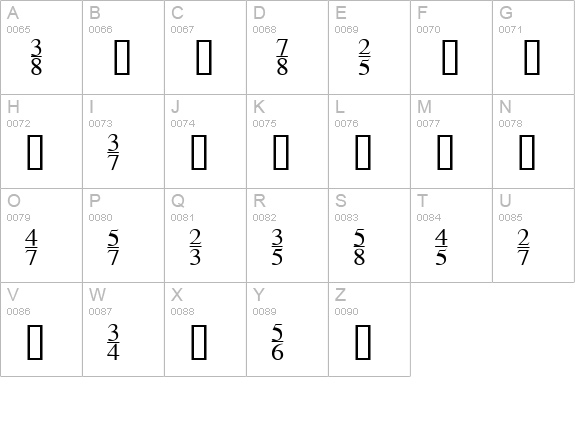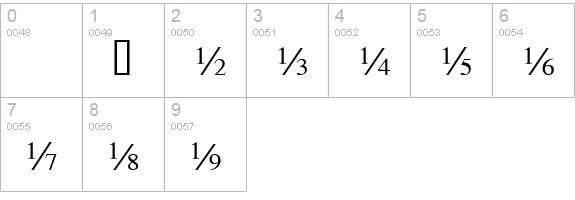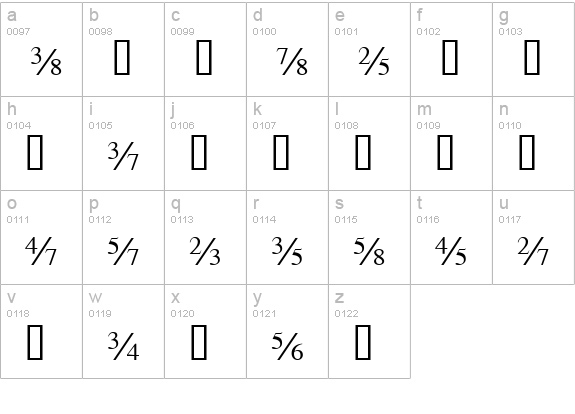
TiFractions Font Details
Introducing TiFractions, a visually stunning and versatile font that is sure to elevate your design projects to new heights. This font is the perfect blend of elegance and functionality, making it ideal for a wide range of applications. TiFractions boasts a unique and contemporary design, with its sleek lines and perfectly balanced proportions. Each letter has been meticulously crafted to ensure maximum legibility and readability, even at smaller sizes. The clean and crisp strokes of this font make it a standout choice for both digital and print media. One of the standout features of TiFractions is its ability to effortlessly create beautiful fractions. With its built-in fraction design system, this font takes the hassle out of creating precise and visually appealing fractions. Whether you're working on a mathematical equation, a recipe book, or a design project that requires precise fraction representation, TiFractions has got you covered. What sets TiFractions apart is that it is not only visually stunning but also freely available to download at FontsMarket.com. This means that you can add this incredible font to your collection without breaking the bank. It's the perfect choice for designers, students, and anyone looking to enhance their creative projects with a high-quality font. TiFractions offers a wide range of weights and styles, allowing you to customize your designs to suit your unique vision. Whether you're looking for a bold and impactful headline or a subtle and elegant body text, this font has the versatility to meet your needs. In conclusion, TiFractions is a font that seamlessly combines beauty and functionality. With its exceptional design and the added convenience of being freely available to download at FontsMarket.com, this font is a must-have for any designer or creative individual. Elevate your projects to new levels of excellence with TiFractions.